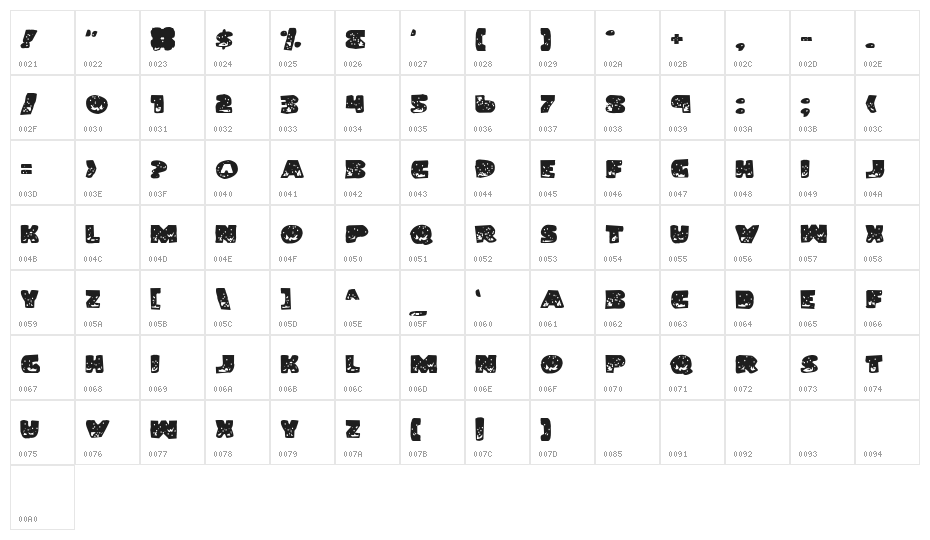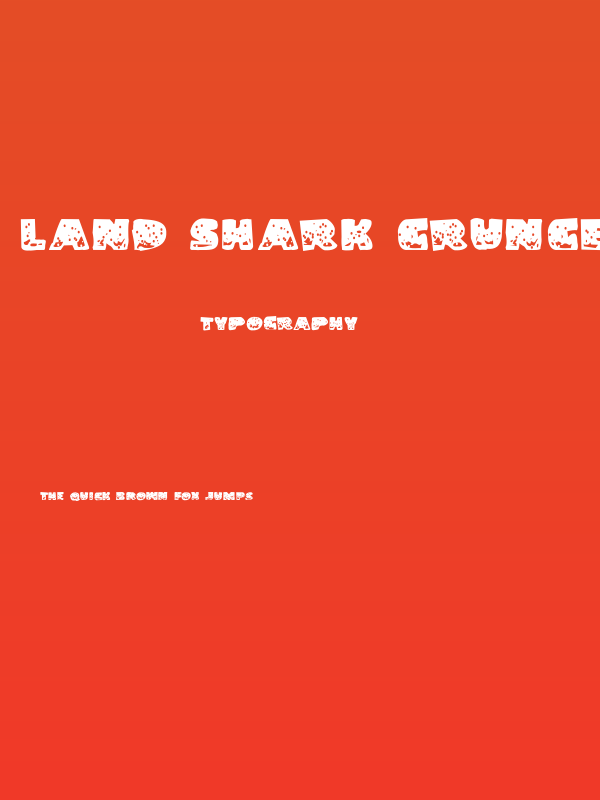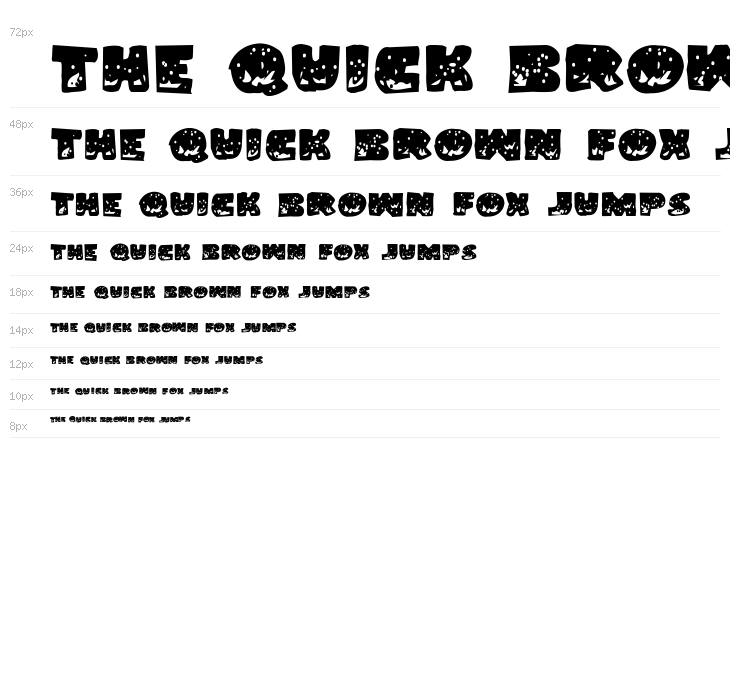
Land Shark Grunge Font
Land Shark Grunge Description
This font features a bold and rugged design with a distressed, grunge texture that gives it a unique and edgy appearance. The characters are thick and blocky, with irregular, worn-out patterns that create a sense of movement and dynamism. The uppercase and lowercase letters maintain a consistent style, while the numbers and special characters complement the overall aesthetic. This font is ideal for projects that require a bold statement or a touch of rebelliousness, such as posters, album covers, or branding for alternative or rock-themed events.
| Overall Style | Grunge, Edgy |
| Proposed Projects | Posters, album covers, branding for alternative or rock-themed events. |